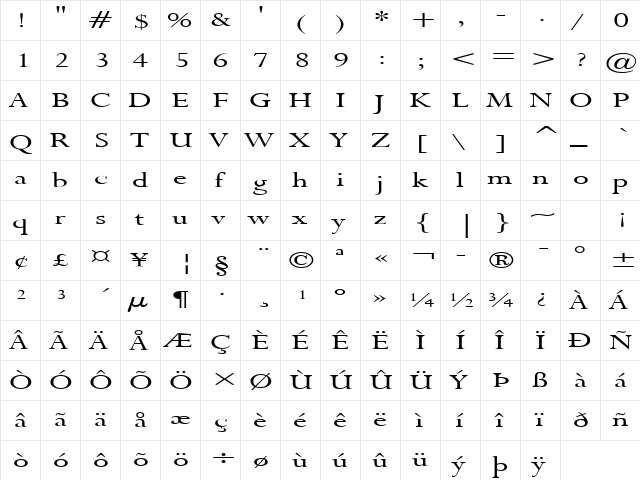
Rapid Extended Normal
Design Context for Rapid Extended Typeface
Rapid Extended is a composed and adaptable typeface that performs quietly and consistently across a wide range of design contexts.